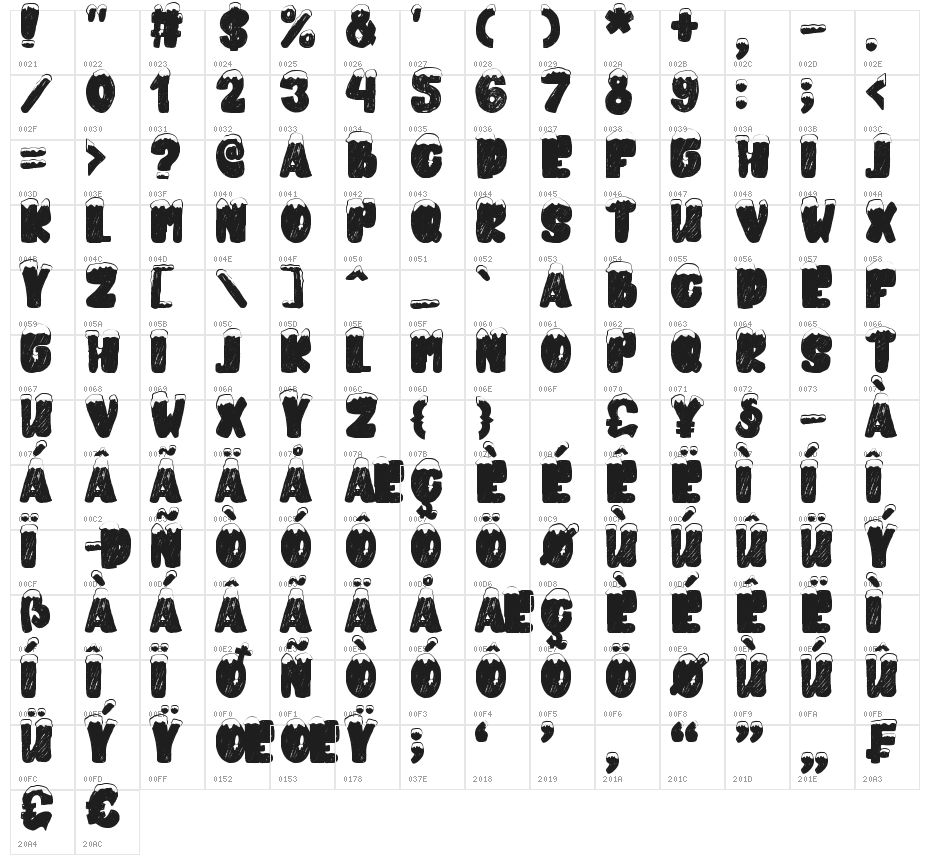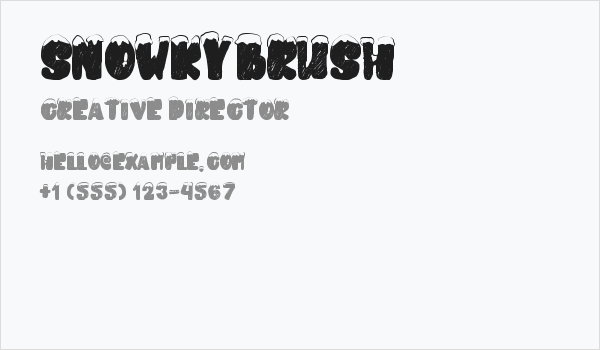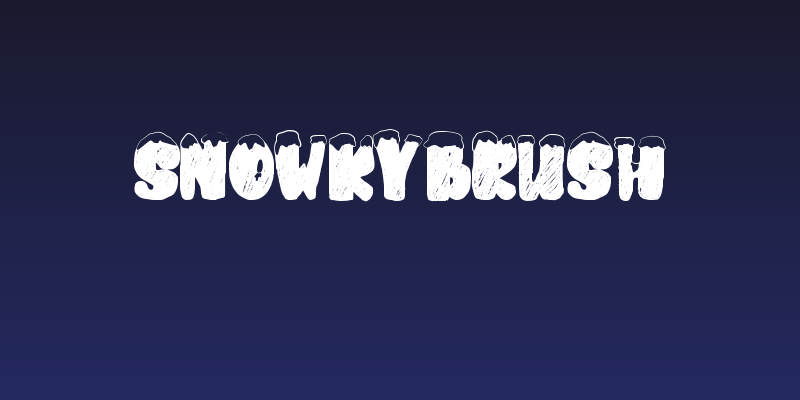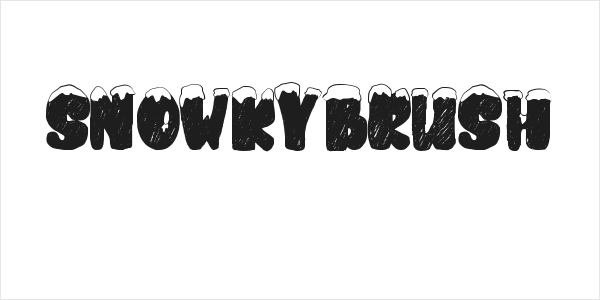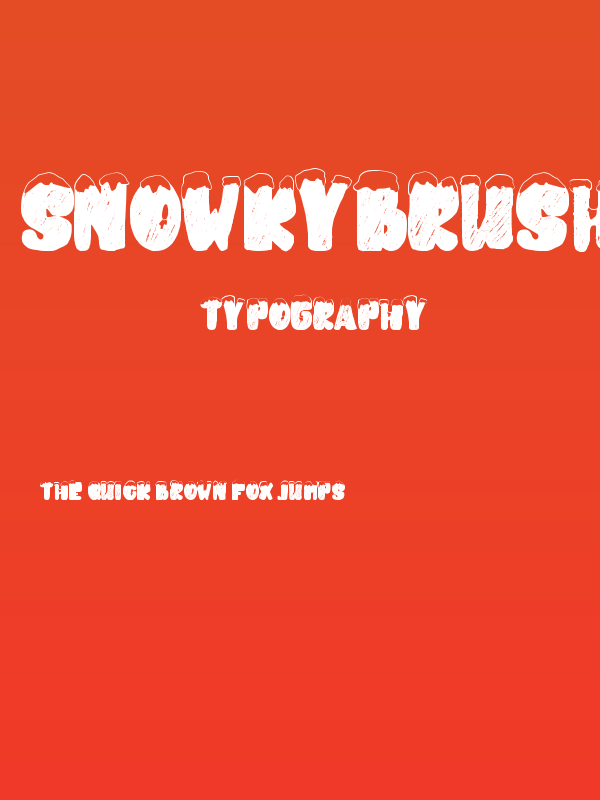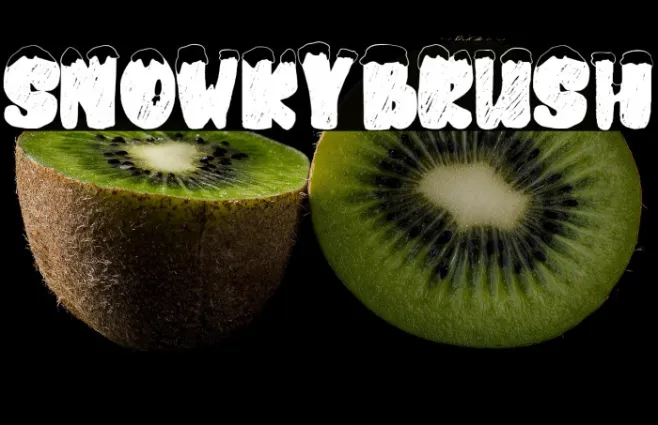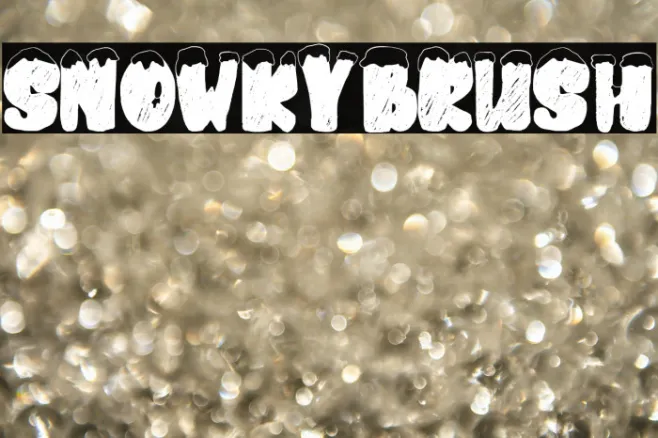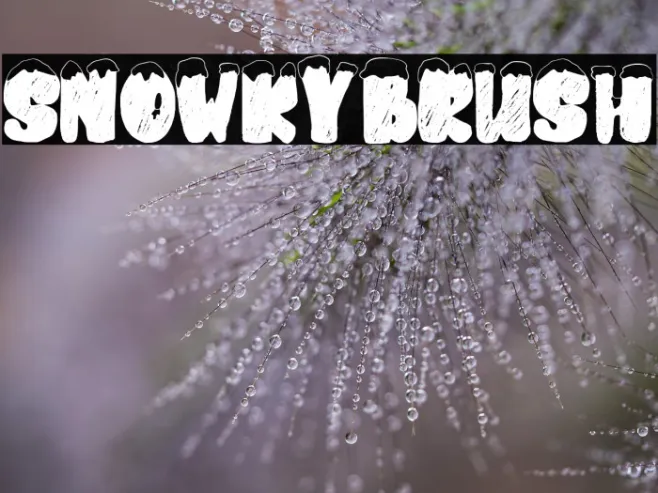
snowkybrush Font
snowkybrush Description
This playful and whimsical font features bold, rounded characters with a unique snowy texture on top, reminiscent of freshly fallen snow. The letters are thick and substantial, providing a strong visual impact while maintaining a fun and approachable appearance. Each character is adorned with a snow cap, adding a touch of winter charm and making it ideal for seasonal designs. The font's boldness ensures readability, while the decorative snow elements make it perfect for festive and holiday-themed projects. Its distinct style captures the essence of winter, making it a great choice for designs that aim to evoke a sense of warmth and joy during the colder months.
| Proposed Projects | Ideal for holiday cards, winter festival posters, seasonal advertisements, and children's book covers. |